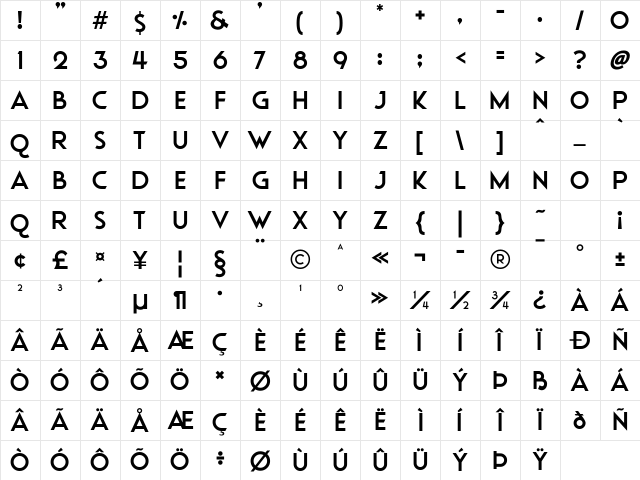
Ubiquitous Regular
Design Context for Ubiquitous
Ubiquitous is a composed and adaptable typeface that performs quietly and consistently across a wide range of design contexts.